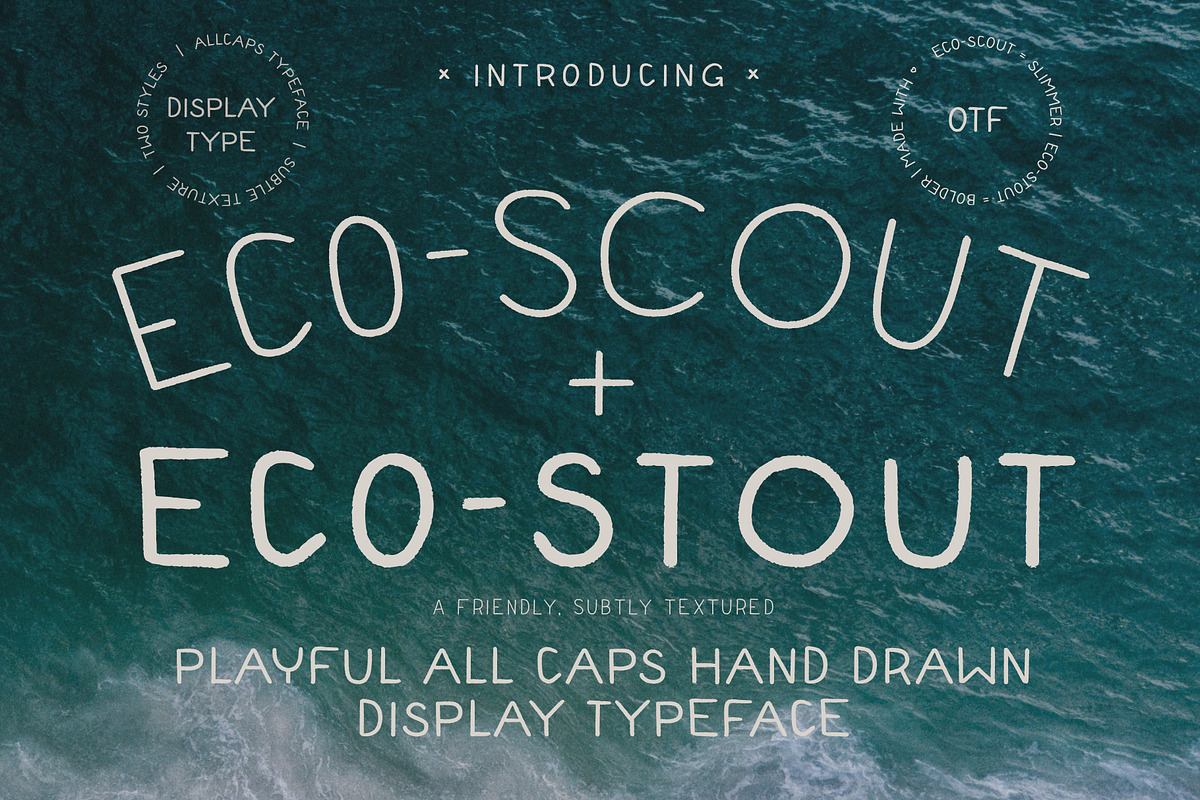
The Eco Scout Playful Hand Drawn Type Font Free Download is a fun and charming typeface that combines playful, hand-drawn letterforms with a unique, organic feel. Perfect for children’s books, eco-friendly branding, creative posters, and playful social media graphics, this font brings warmth and personality to your designs.
With its friendly strokes and lively character, Eco Scout offers a casual yet stylish look that works well for a variety of creative projects. It includes uppercase and lowercase letters, numbers, punctuation, and multilingual support, making it adaptable to different design needs.